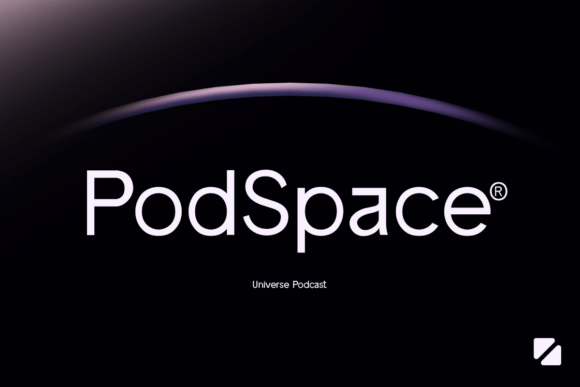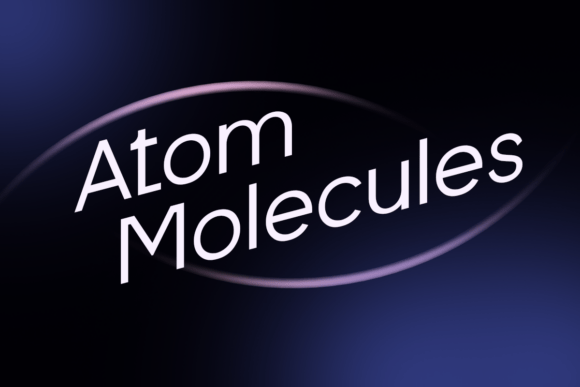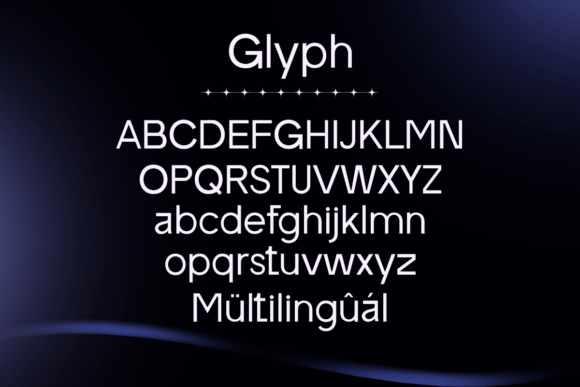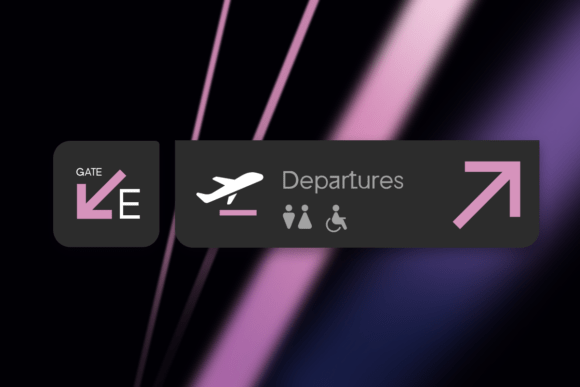
Introduction to Ft Nevox Font
Have you ever stared at a blank canvas, struggling to find the perfect design element to bring your creative project to life? It’s a feeling many designers know all too well. But what if I told you that the solution lies in the subtle nuances of a single font – the Ft Nevox Font? This sleek sans serif font is more than just a design resource; it’s a key to unlocking the very essence of modern professionalism.
With its elegant lines and symmetrical proportions, the Ft Nevox Font is a game-changer for designers looking to elevate their creative projects. Whether you’re working on a high-quality brochure, a website, or a social media graphic, this versatile font is sure to deliver. And the best part? It’s available for free download, making it an accessible design resource for designers of all levels.
Key Features of Ft Nevox Font
- Includes a wide range of glyphs, including Latin, Cyrillic, and Greek alphabets, making it a versatile design resource.
- Designed to be highly legible, making it perfect for use in various creative projects, from branding to publishing.
Honest Review: Ft Nevox Font
I recently stumbled upon the Ft Nevox Font while searching for a unique design resource to elevate my creative project. I was excited to dive in and see if it lived up to its promise.
- ✨ High-quality design that’s perfect for modern and minimalist designs
- ✨ Unique and stylish characters that add a touch of elegance to any project
- ✨ Transparent background, making it easy to overlay on any image or background
- ⚠️ Limited font styles and weights, which may not be ideal for complex designs
- ⚠️ Some characters may not be suitable for very small or large font sizes
Overall, I’m impressed with the Ft Nevox Font, but it’s not a one-size-fits-all solution. It’s perfect for designers who want a high-quality, modern font for their creative projects, but may not be suitable for those who need a wide range of font styles and weights.
Ft Nevox Font
The Ft Nevox Font is a versatile and high-quality design resource ideal for creative projects. Its transparent background makes it a perfect addition to any graphic design.
Tips for Getting the Most Out of Ft Nevox Font
To get the most out of the Ft Nevox Font, use it in conjunction with other high-quality design resources. Experiment with different font sizes, colors, and styles to create a unique and eye-catching design.
The Ft Nevox Font is commonly used in graphic design projects, such as logos, brochures, and business cards. Its transparent background makes it a perfect choice for overlays and other design elements.
Alternatives to Ft Nevox Font
Open Sans is a high-quality, sans-serif font perfect for any creative project that requires a clean and modern design. It’s available for free download and has a transparent background, making it easy to integrate into any design resource.
When to use: Open Sans is ideal for projects that require a neutral and approachable tone, such as blogs, websites, and apps. It’s a great alternative to Ft Nevox Font for designs that need a more subtle look.
Comparison: Open Sans is more versatile and readable at smaller font sizes compared to Ft Nevox Font, making it a better choice for body text and headings.
Lato is a beautiful, sans-serif font designed specifically for digital use. It’s available for free download and has a high-quality design that’s perfect for creative projects. The font features a transparent background, making it easy to integrate into any design resource.
When to use: Lato is ideal for projects that require a modern and sophisticated look, such as luxury brands, high-end websites, and creative portfolios. It’s a great alternative to Ft Nevox Font for designs that need a more premium feel.